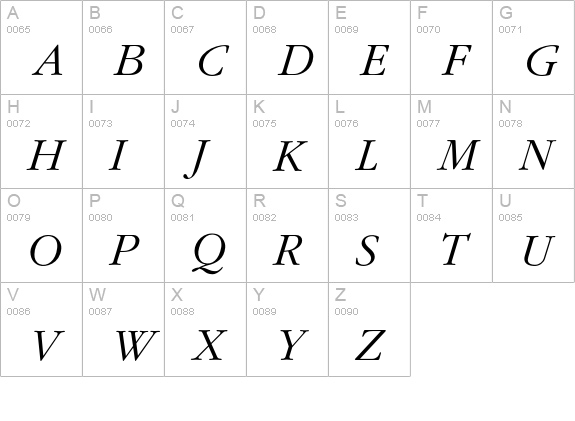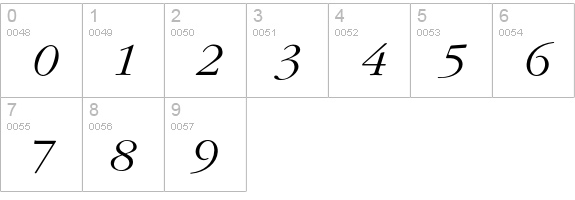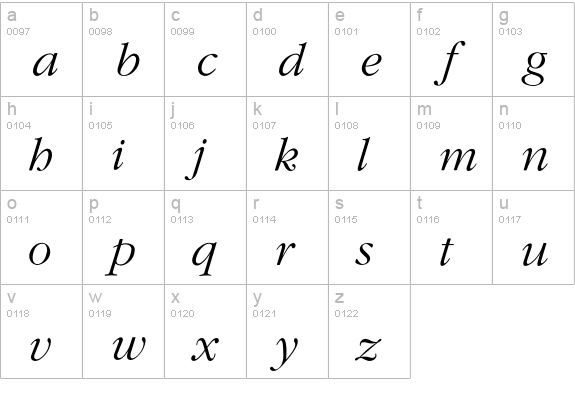
GaramondLightItalic Font Details
GaramondLightItalic is a graceful and elegant typeface that exudes sophistication and refinement. Its delicate, slanted design adds a touch of flair to any project, making it perfect for conveying a sense of style and prestige. The flowing curves and subtle serifs of GaramondLightItalic create a harmonious and pleasing appearance, making it a popular choice for projects that require a touch of sophistication. What sets GaramondLightItalic apart is not just its aesthetic appeal, but also its accessibility. This beautiful font is available for free download at FontsMarket.com, making it easy for designers and creatives to incorporate its timeless charm into their work without breaking the bank. Whether you're working on a branding project, a wedding invitation, or a magazine layout, GaramondLightItalic is sure to elevate your design with its classic beauty and effortless elegance. Download this exquisite font today from FontsMarket.com and add a touch of refinement to your next project.